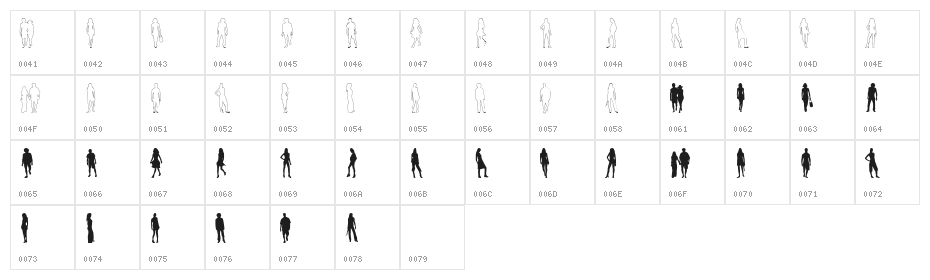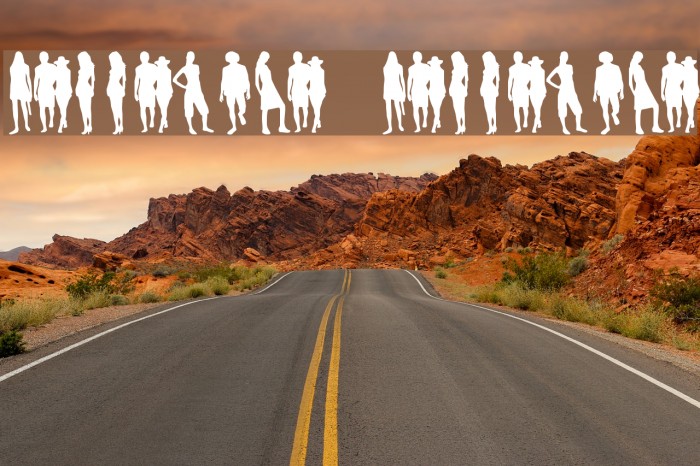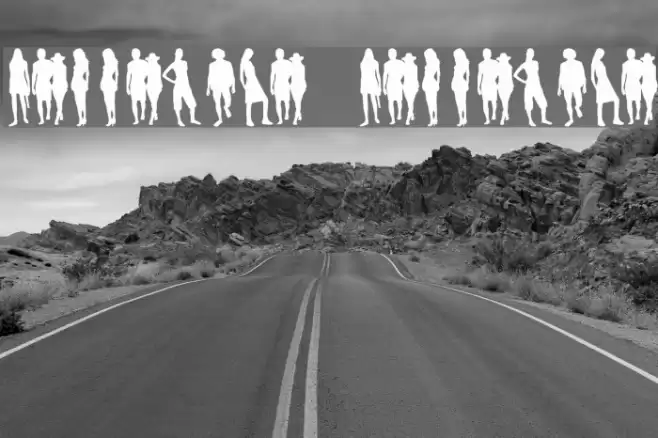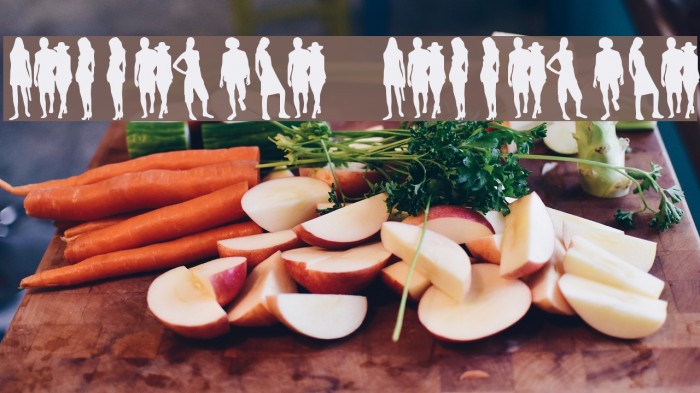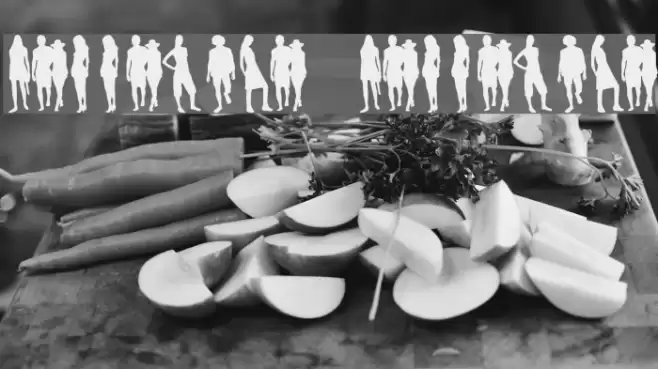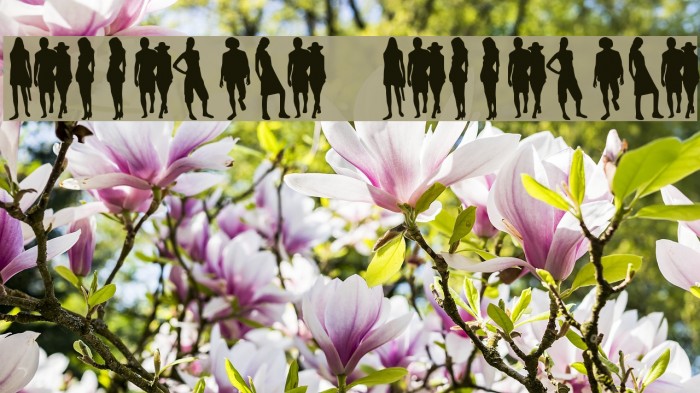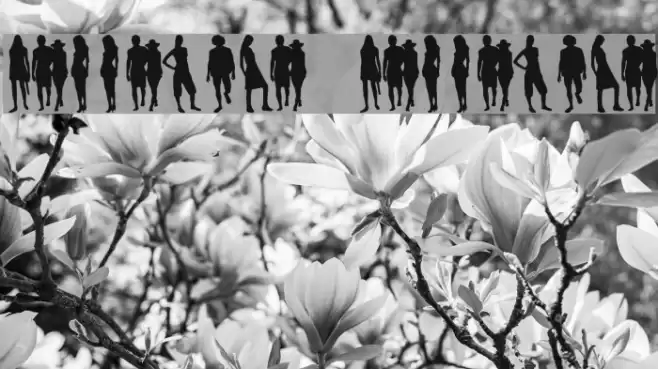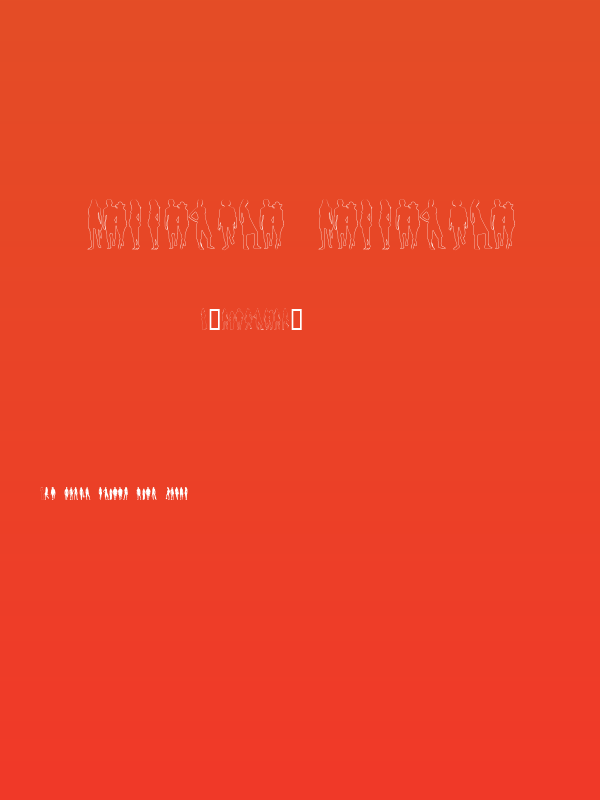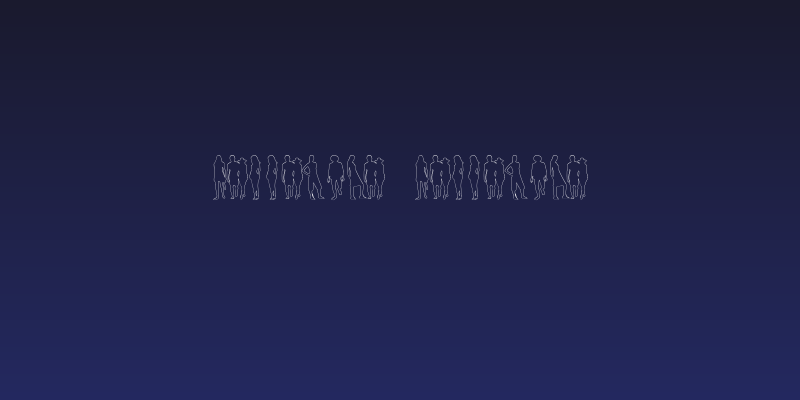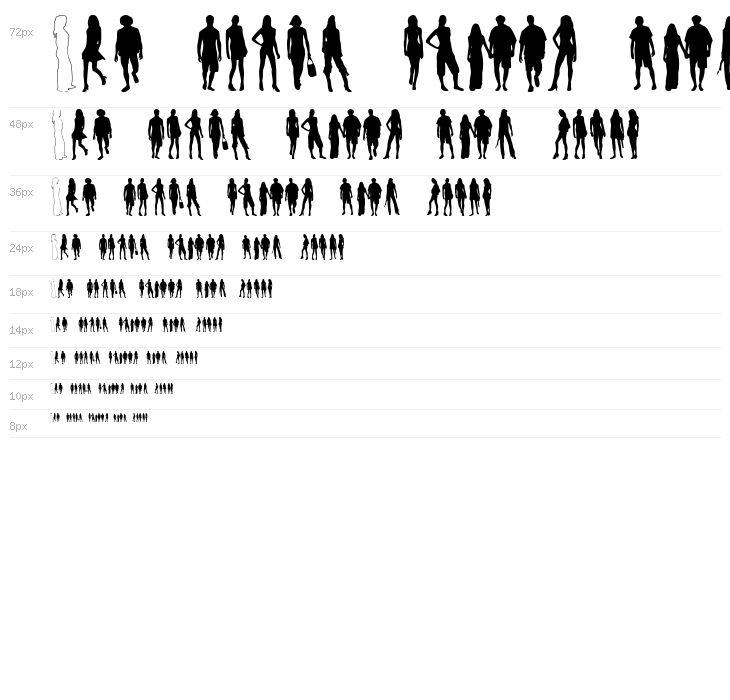
passarela Font
passarela Description
A decorative display font featuring silhouettes of fashion models in various poses for letters and numbers, with punctuation represented by bold rectangular frames. The characters are highly stylized and illustrative, evoking a runway or fashion show theme.
| Overall Style | Decorative, Fashion-forward, Modern |
| Use Case | Headlines, Logos, Posters, Event Branding |
| Proposed Projects | Fashion branding, event posters, runway invitations, magazine covers, creative advertising. |